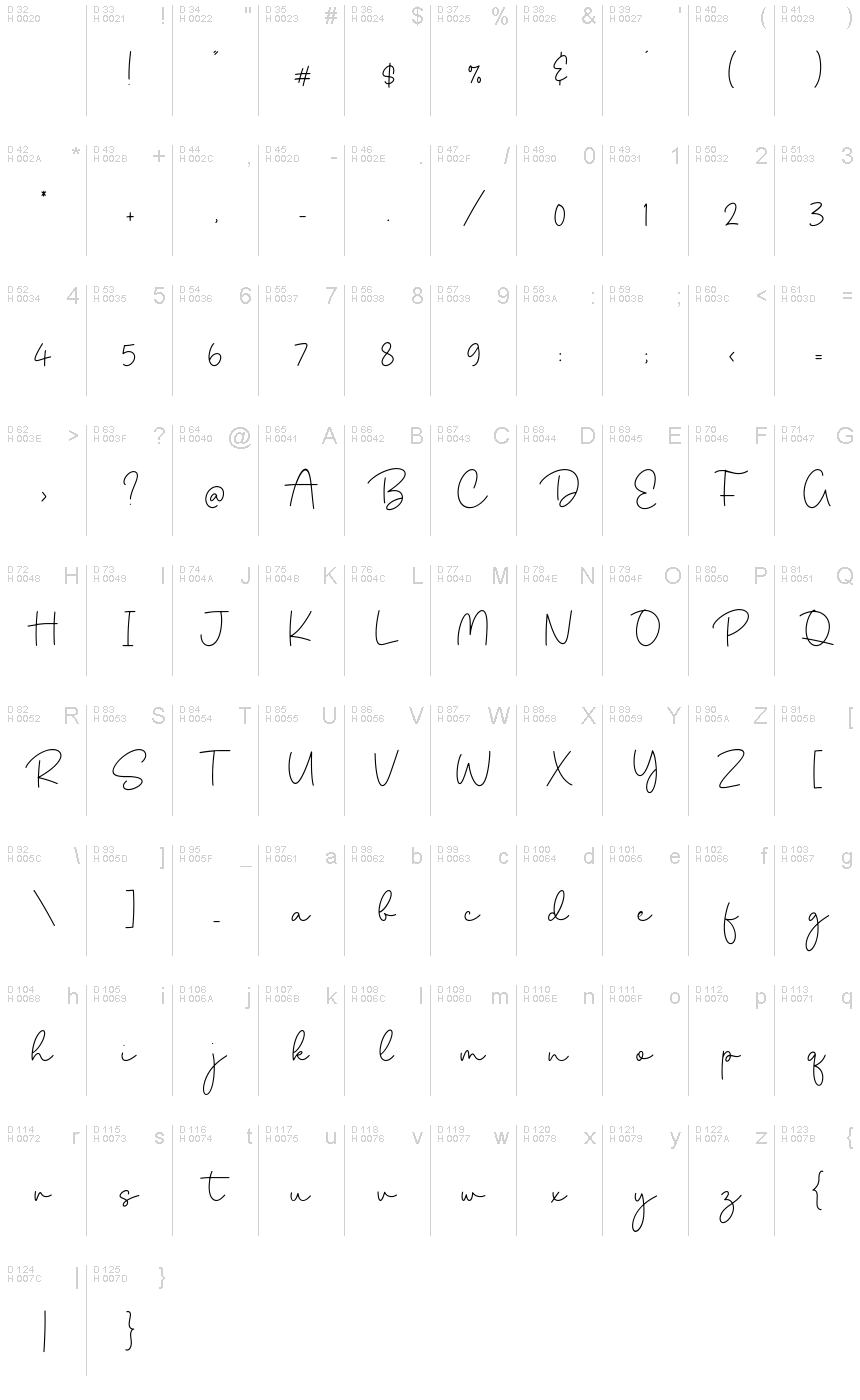
Spirited Notes
Spirited Notes by Letterative Studio captivates with its delicate, handwritten charm. The light strokes and fluid curves evoke a sense of effortless elegance and personal touch. This font's airy and relaxed demeanor makes it an ideal choice for projects wanting to infuse a sense of warmth and approachability.
Perfect for wedding invitations, greeting cards, or personal branding materials, Spirited Notes brings a bespoke quality to any design. Its authentic handwritten style seamlessly blends sophistication with simplicity, making it versatile for both digital and print media. Let Spirited Notes add a unique flair to your creative endeavors, turning ordinary text into an extraordinary expression of personality and grace.